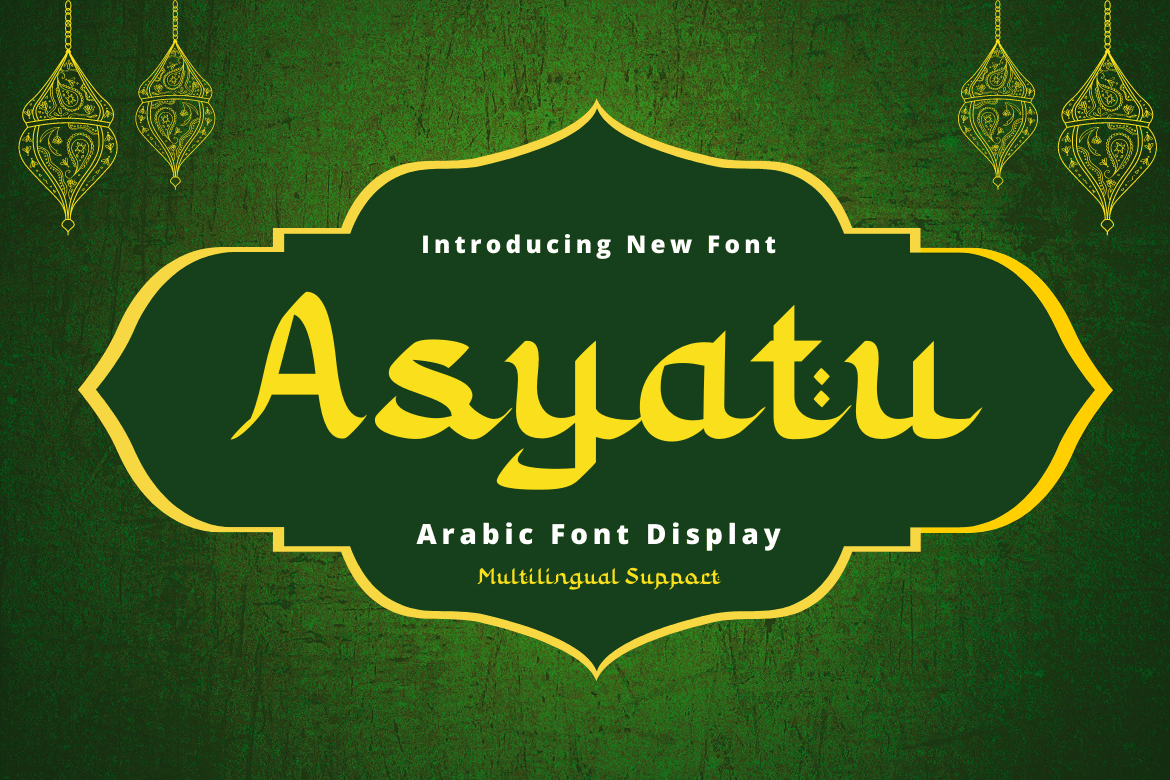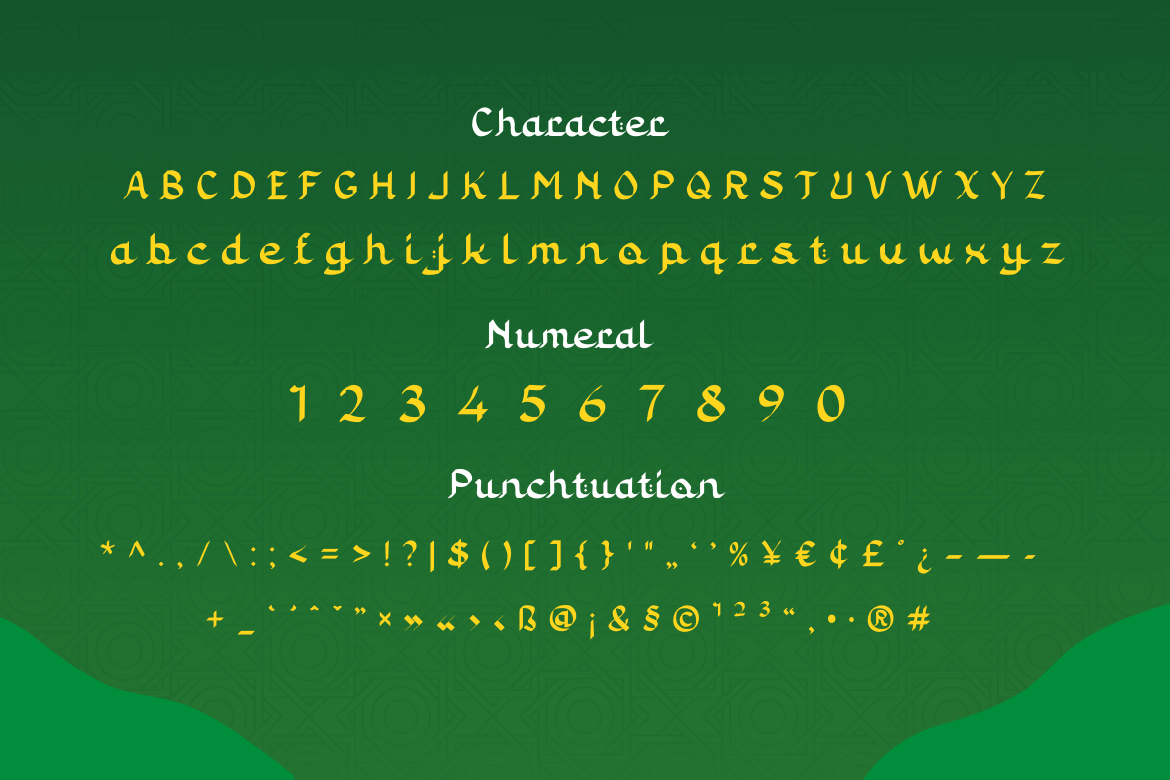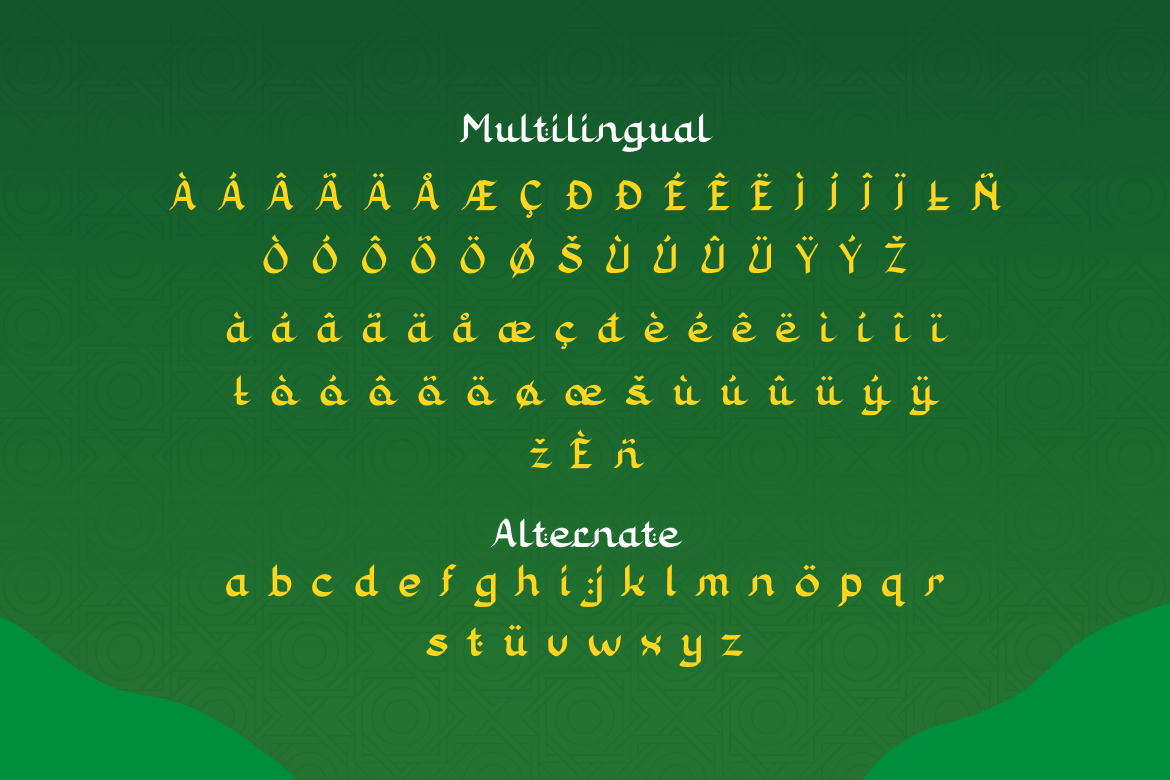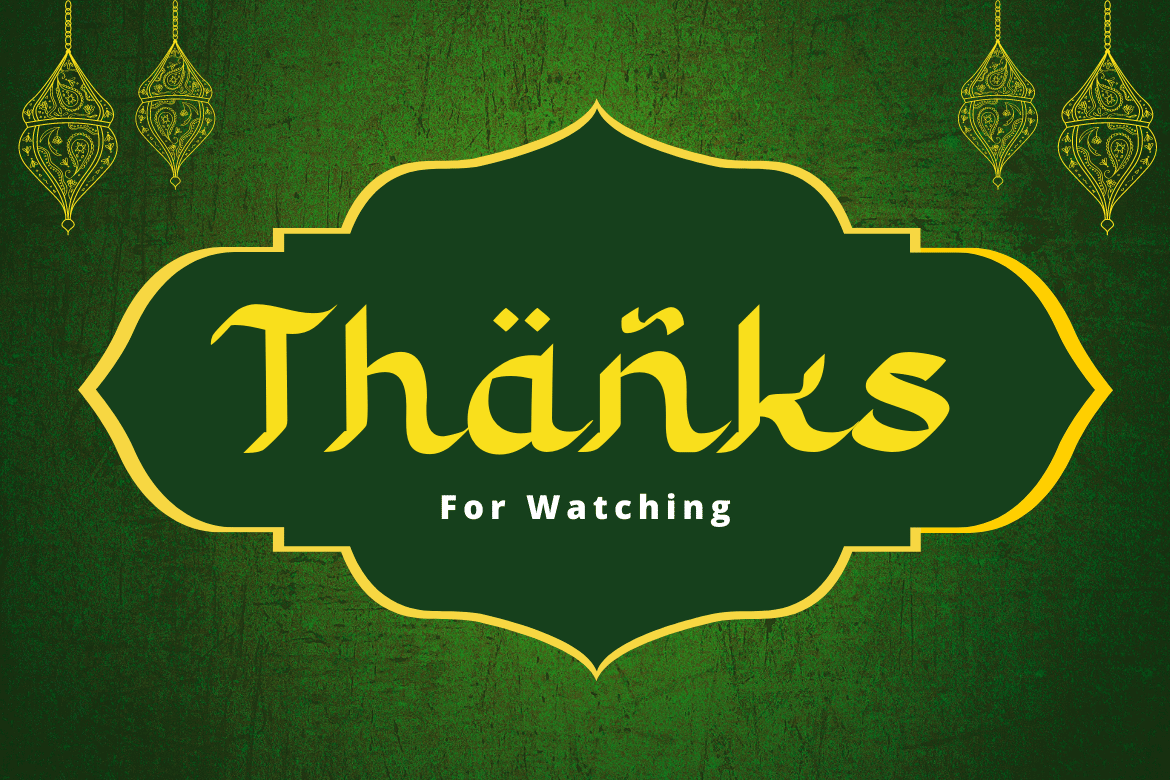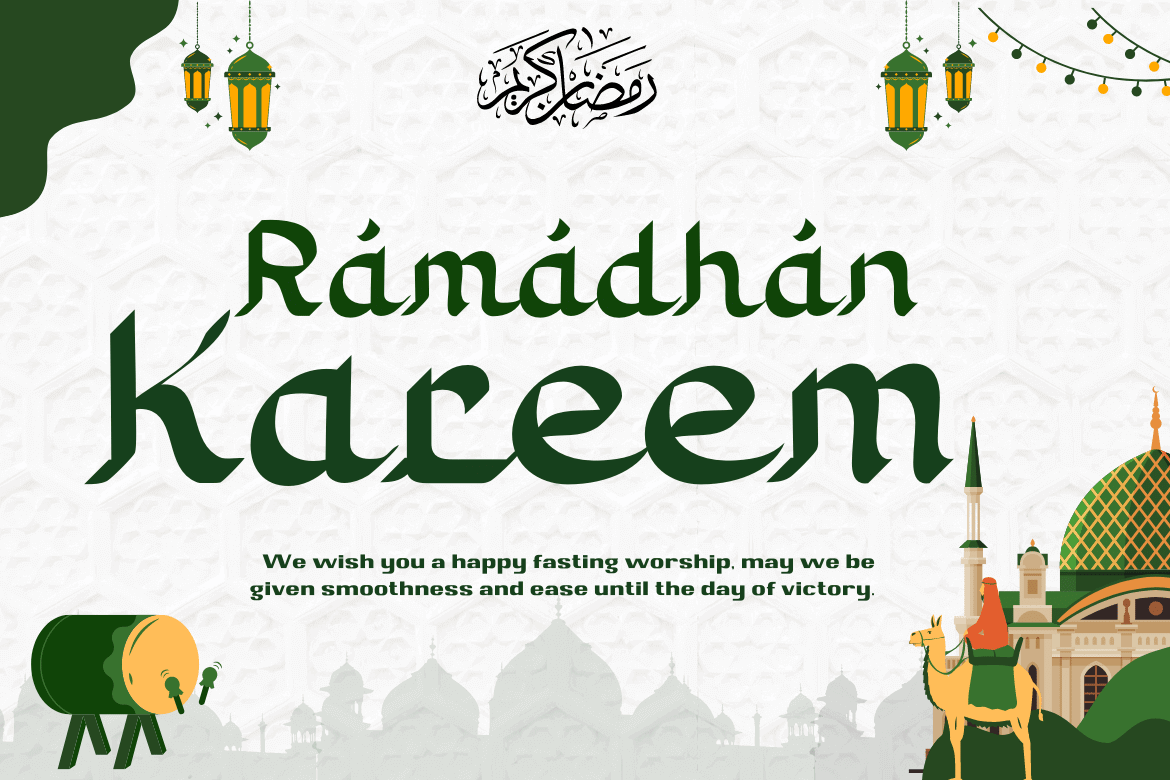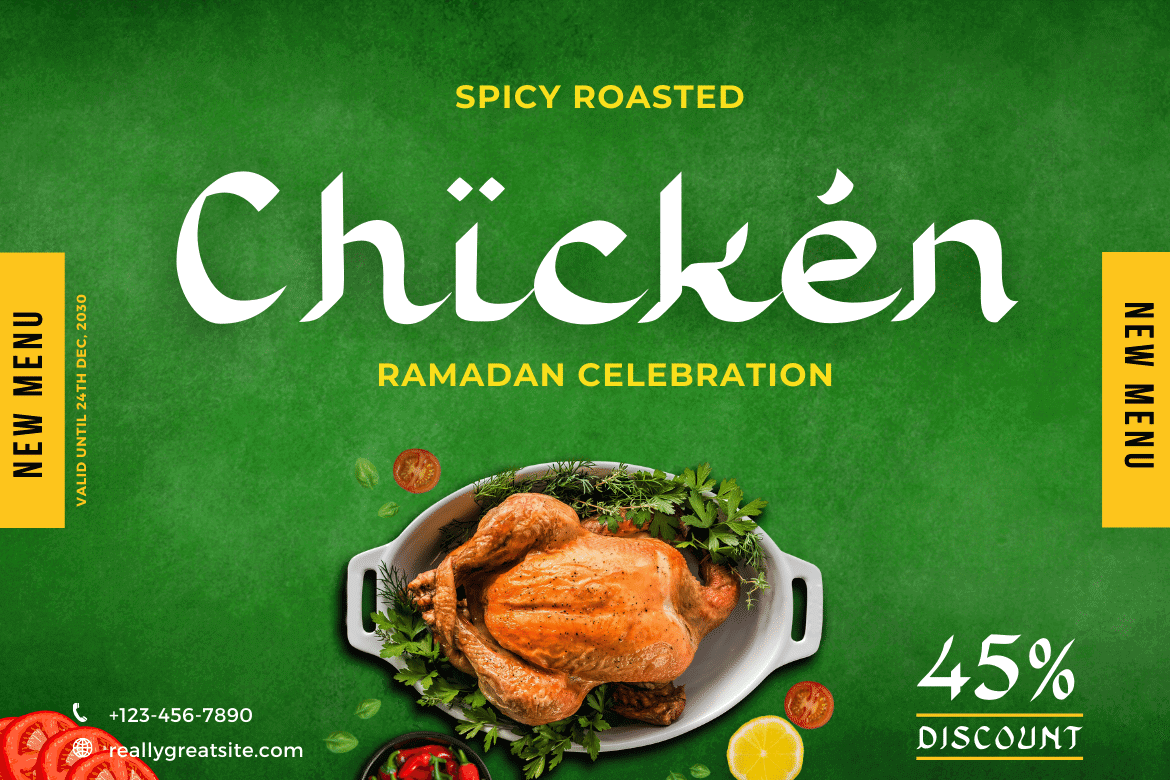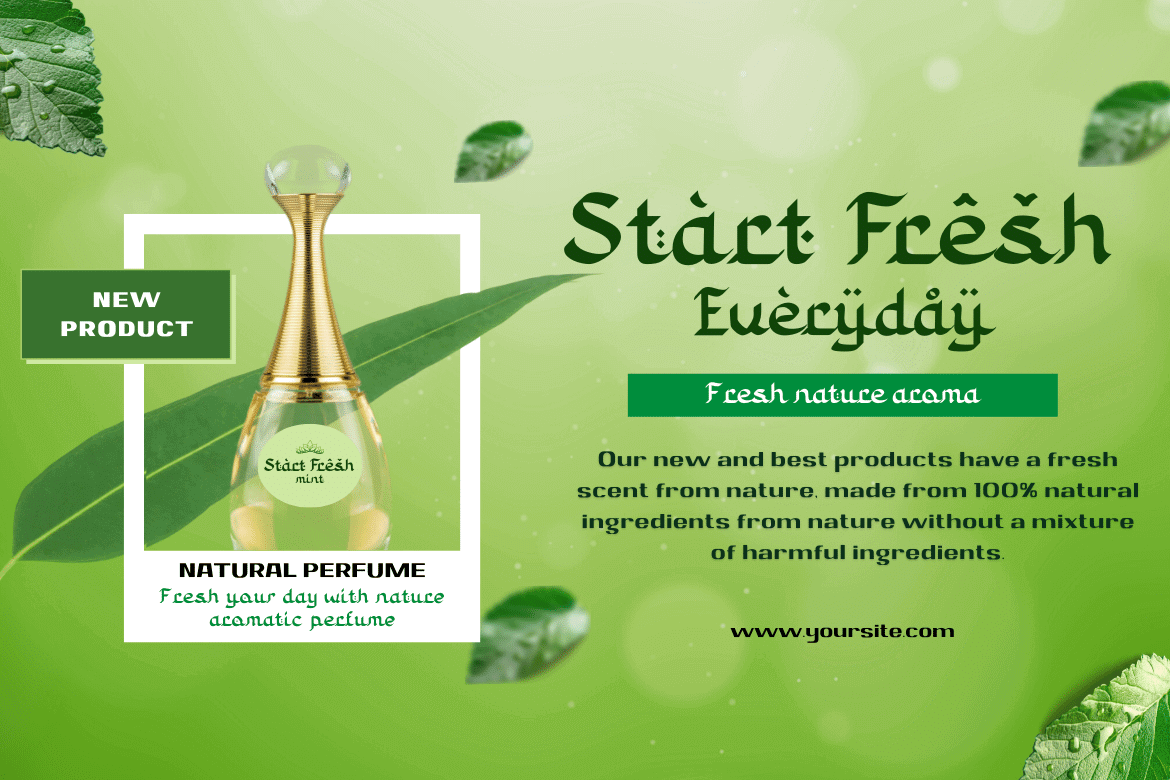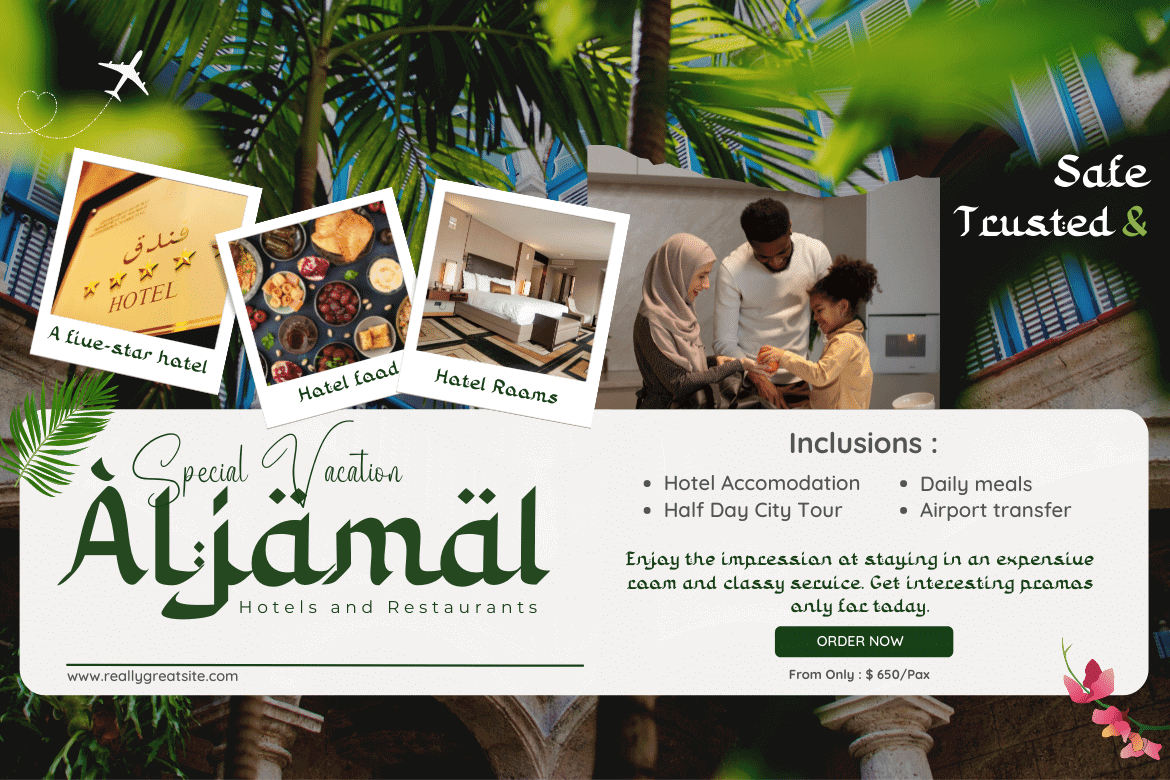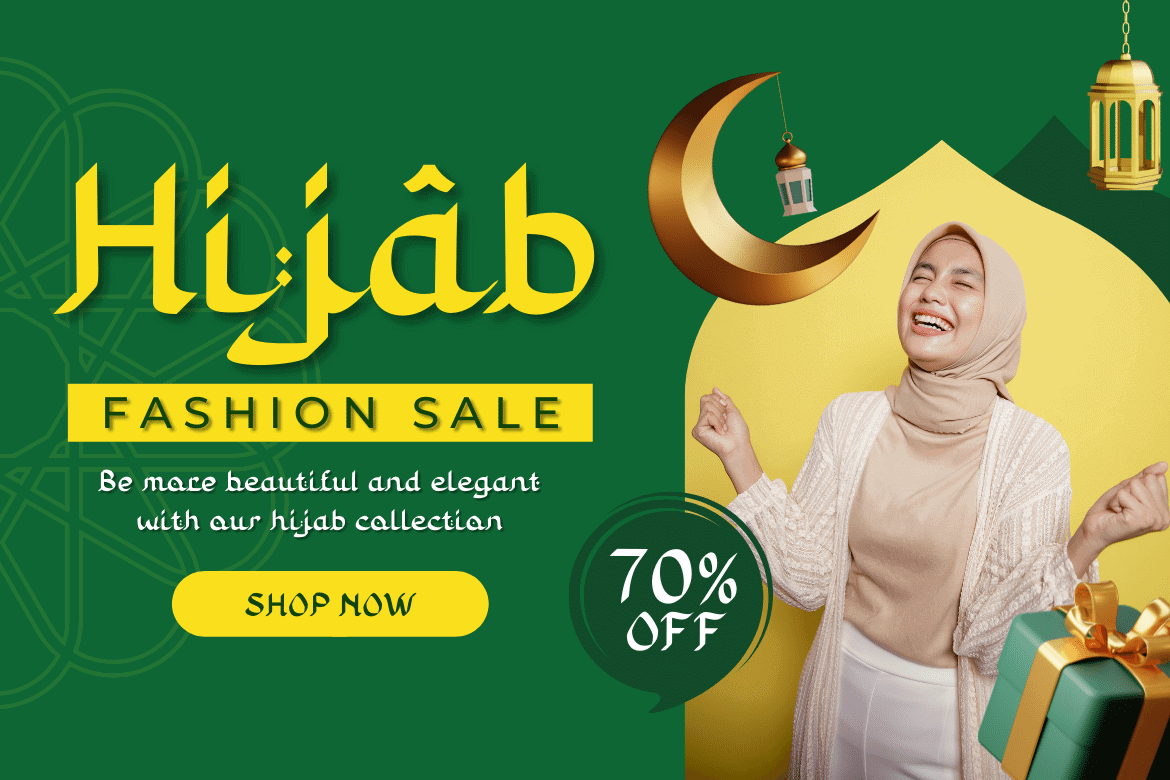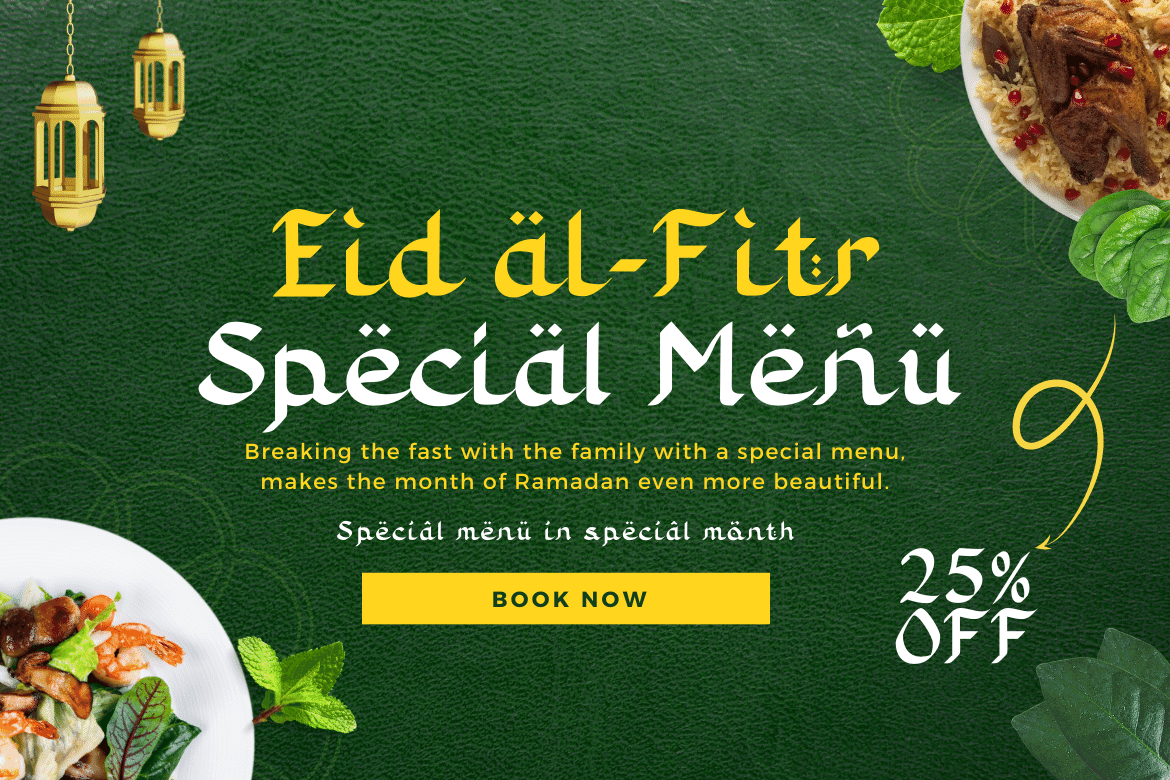
Asyatu
Asyatu Arabic style font. These fonts are not only useful and beautiful. They are also well made. Our designers work hard to ensure the quality of each font is similar to that of a professional calligrapher. This font is perfect for you whether you are designing Islamic greeting cards for your friends’ weddings. Invitations for big events like engagement parties or birthday parties, as well as your various special projects.